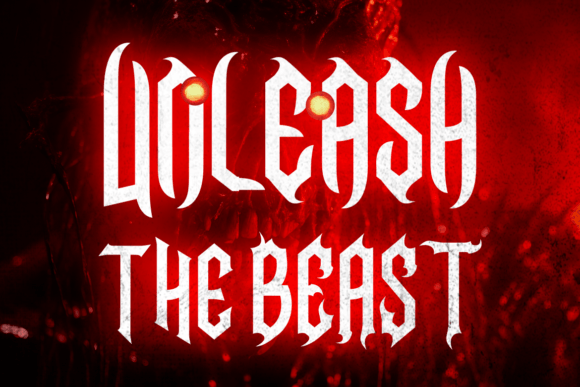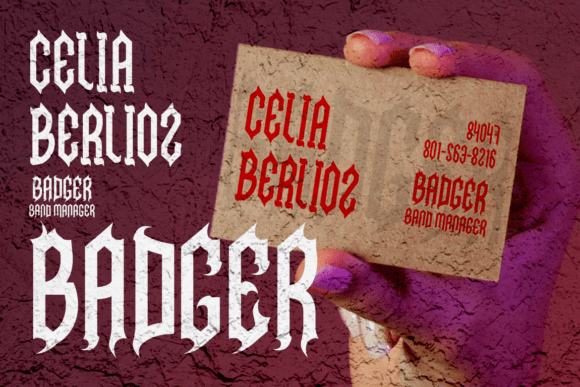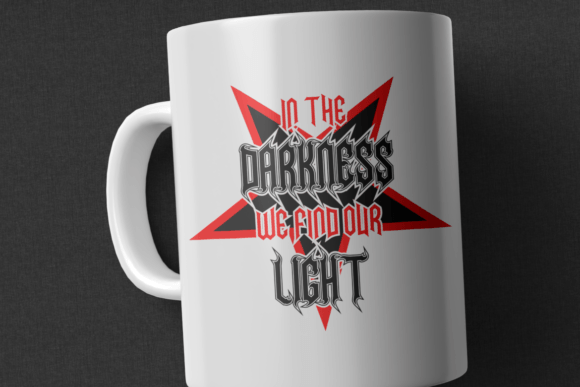
Introduction to Necrovoid Font
Unleash the raw power of typography with Necrovoid – Heavy Metal Font, a display typeface that screams rebellion and strength.
With its razor-sharp edges and gothic flair, this font encapsulates the essence of metal music’s dark allure Each letterform is crafted to pierce through the mundane, making it an ideal choice for those looking to make a bold statement.
Necrovoid Font offers exceptional quality and versatility, making it a valuable addition to your design toolkit. Whether you’re creating for personal projects or commercial use, Necrovoid Font delivers professional results.